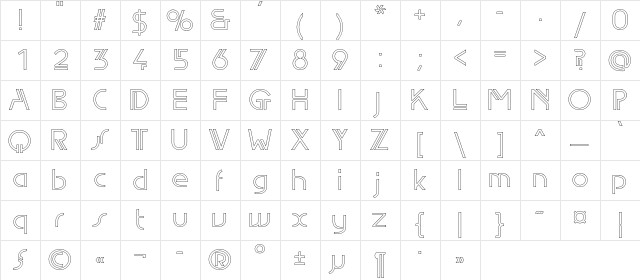
EdgeLineOutline Regular
Design Context for EdgeLineOutline Typeface
EdgeLineOutline is built around its visual character rather than neutral utility — its distinctive forms are designed to make an impression at display sizes.
Font Pairing: Pair with a clean neutral sans-serif for body copy to let EdgeLineOutline's character lead without overwhelming the composition.
Pro Tip: Treat EdgeLineOutline as the centrepiece of your typographic hierarchy. One strong heading set in a decorative face can carry an entire layout.